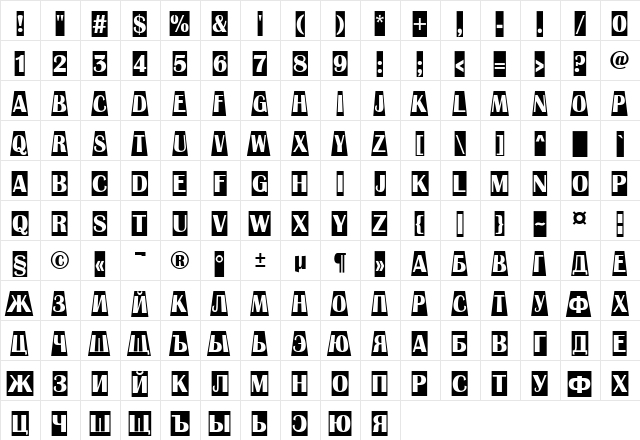
a_AlbionicTtlCmDc1Cmb Bold
Design Context for a_AlbionicTtlCmDc1Cmb Typeface
a_AlbionicTtlCmDc1Cmb offers clean, dependable letterforms without strong stylistic allegiance, making it a practical choice for designers who need flexibility. The heavy weight commands attention and anchors typographic hierarchies.